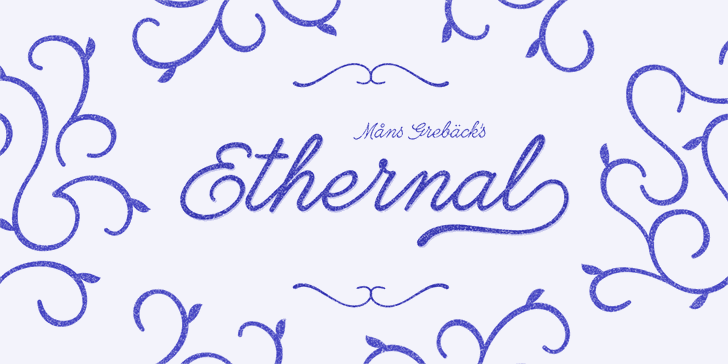
Free Ethernal Bold Font
Introducing you to the absolutely beautiful free ethernal bold font. This font file was found from the amazing source called Font Space. Easily amaze your audience with this fancy font and make your graphic designs pop up from the crowd.